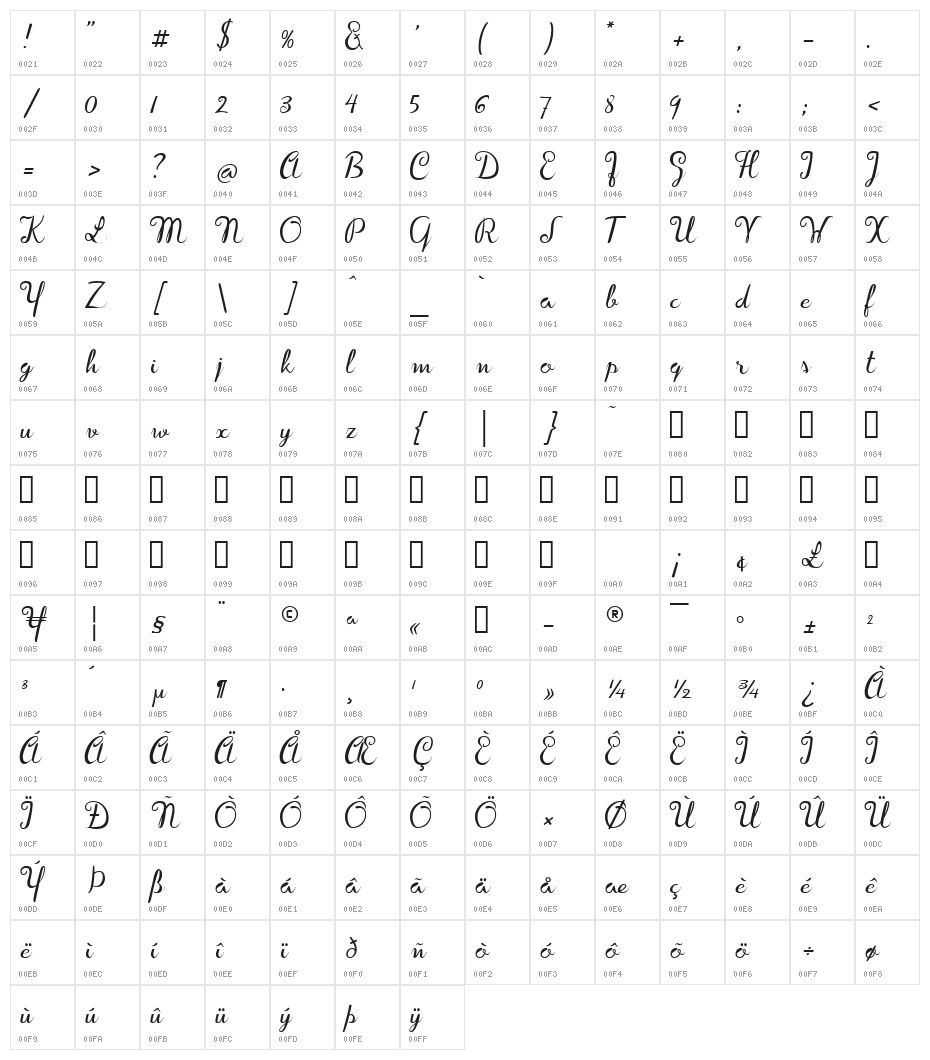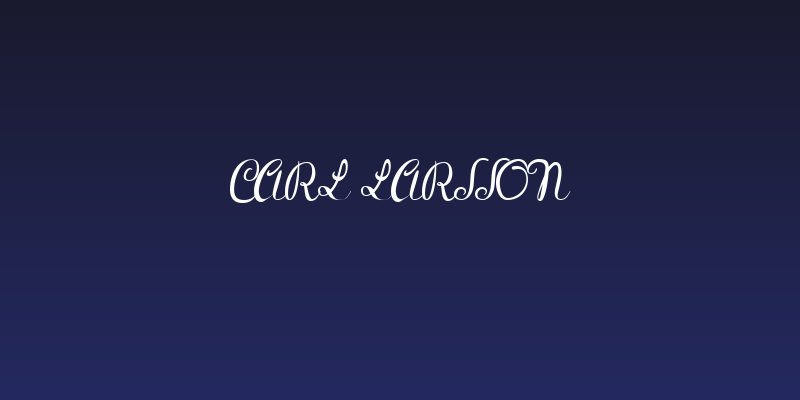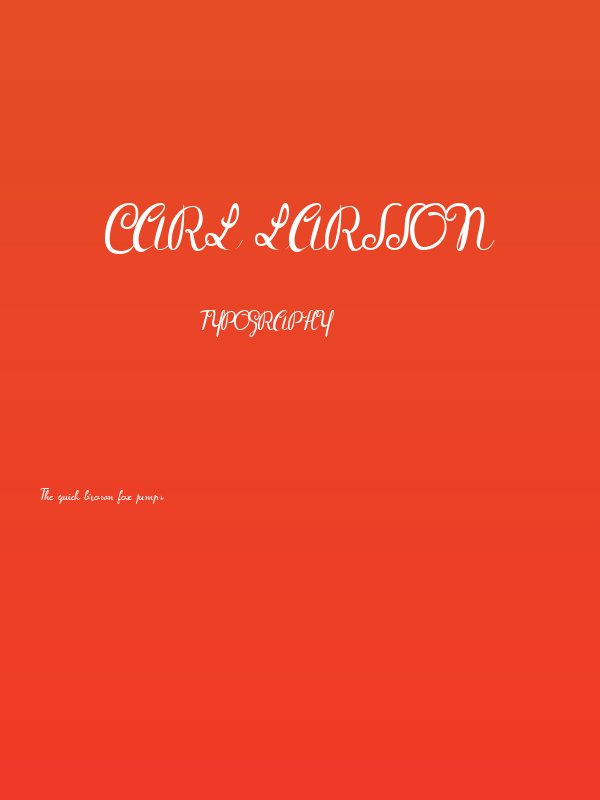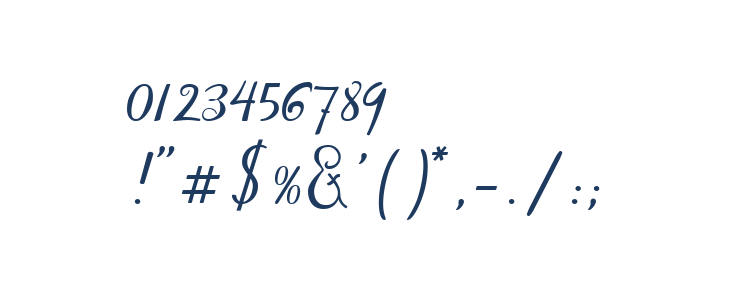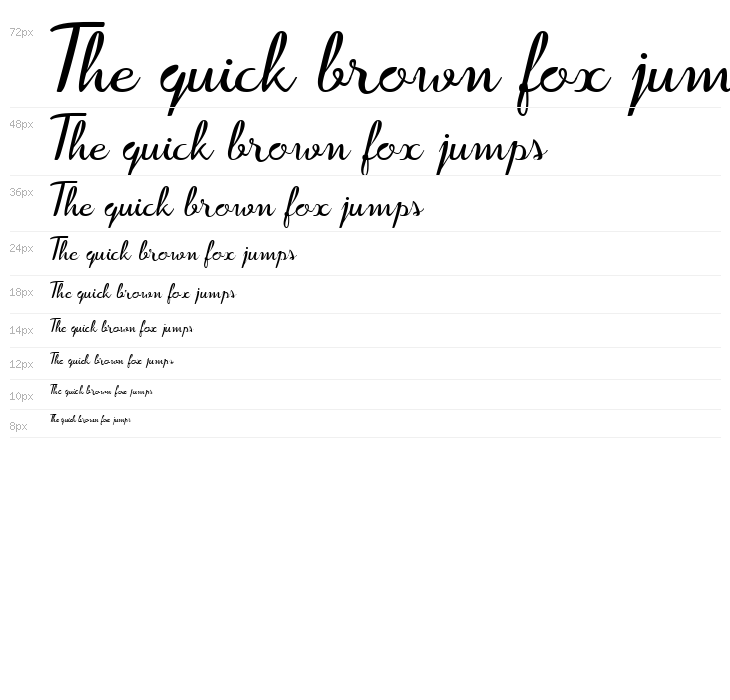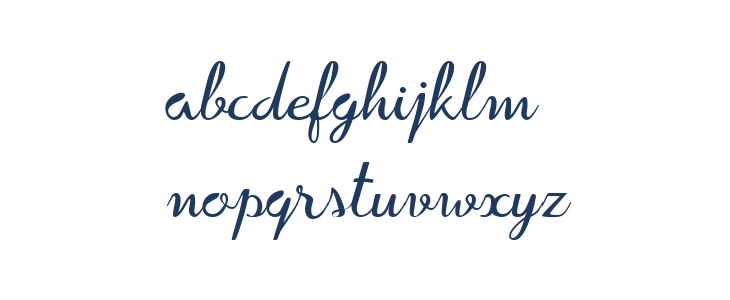
Carl Larsson Font
Carl Larsson Description
This elegant script font features flowing, cursive letters with a sophisticated flair. The uppercase characters are ornate and slightly elongated, giving a sense of grace and fluidity. The lowercase letters maintain a consistent style, with smooth curves and a slight slant, enhancing the handwritten aesthetic. The numerals are clear and maintain the script style, ensuring readability while preserving the decorative nature. Special characters are thoughtfully designed to match the overall elegance, making this font suitable for formal and creative applications.
| Overall Style | Elegant, Decorative |
| Proposed Projects | Ideal for wedding invitations, elegant branding, greeting cards, and artistic projects requiring a touch of sophistication. |